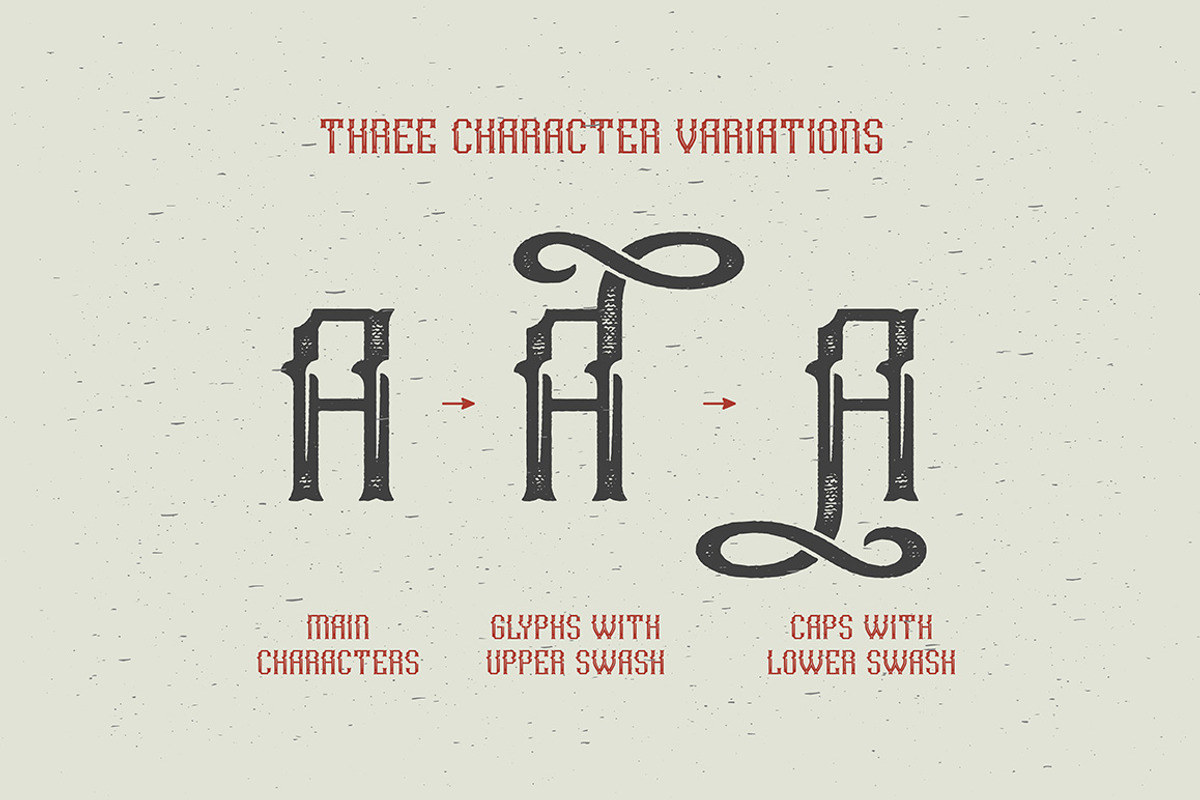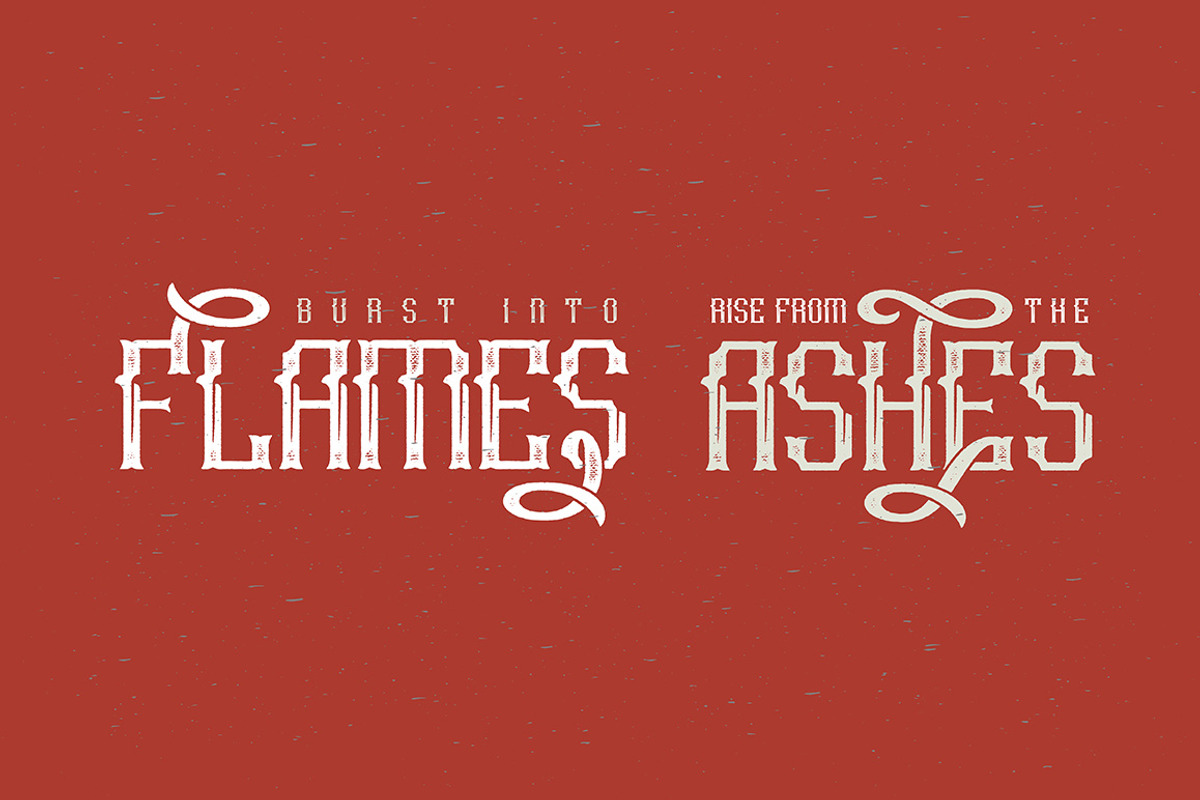
Rusty Phoenix Typeface
Rusty Phoenix Typeface by Gleb Guralnyk is a font selected for branding, posters, packaging, typography.
Why Rusty Phoenix Typeface is worth a look
Rusty Phoenix Typeface by Gleb Guralnyk fits naturally into Branding, posters, packaging, typography.